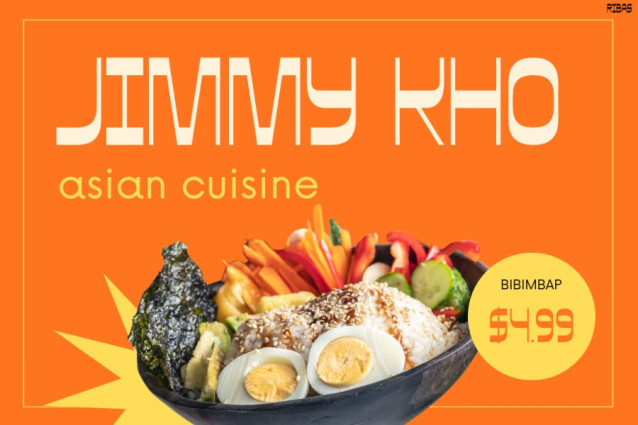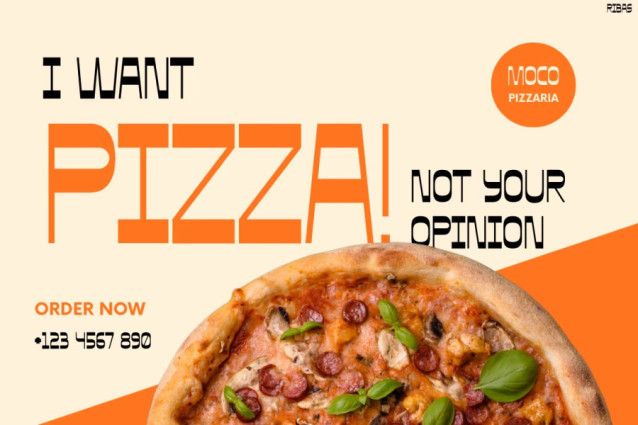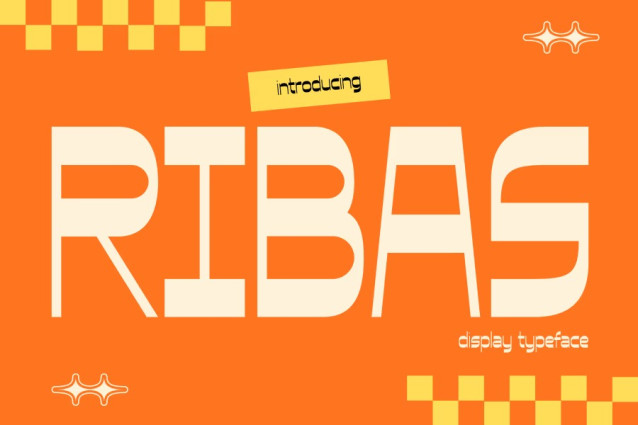
Ribas Font
Ribas Font introduces a strong retro look with bold geometry, and it immediately catches attention. Moreover, its clean shapes create a steady rhythm that feels both modern and nostalgic. The rounded edges soften the structure; therefore, the font becomes friendly and highly readable. Each letter stands firm, yet it still keeps a playful touch. Because of this balance, the font looks great in menus, posters, banners, and social media layouts. In addition, the modular style helps your design appear sharp and well-organized. It quickly transforms simple compositions into striking visuals.
Furthermore, Retro Font RIBAS works well with bright palettes and minimal layouts. It also fits retro themes without feeling outdated. As a result, your message appears stronger and more confident. The font performs beautifully in both print and digital use. Designers will appreciate its easy handling, and creators will enjoy its instant visual punch. In fact, the spacing options make every layout flexible and fast to build. Consequently, the font saves time while improving visual quality.
Who Is It Perfect For?
This font is ideal for designers who want a retro style with modern clarity. Additionally, cafés, restaurants, and food brands can use it to build bold menu titles or standout signage. Small businesses also benefit from its strong personality because it helps branding feel more alive. Meanwhile, content creators can use it for thumbnails, covers, and social posts that require fast attention. Agencies will also find it useful for packaging work, event promotions, and branded visuals. Even students can use it to create cleaner and more expressive heading styles. Ultimately, anyone who needs clarity, character, and impact in one typeface will value this font.
Why You Should Choose It